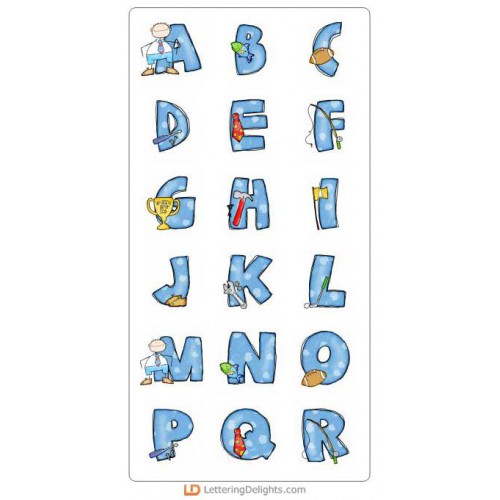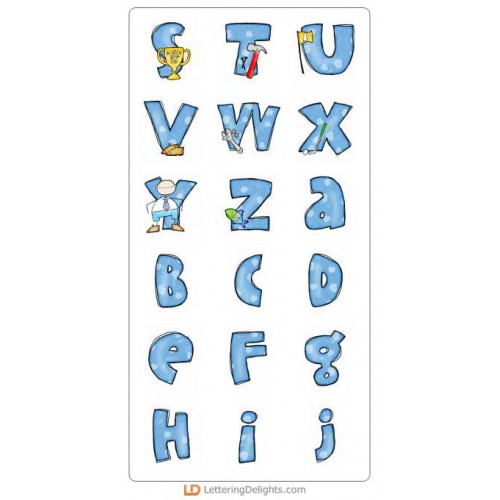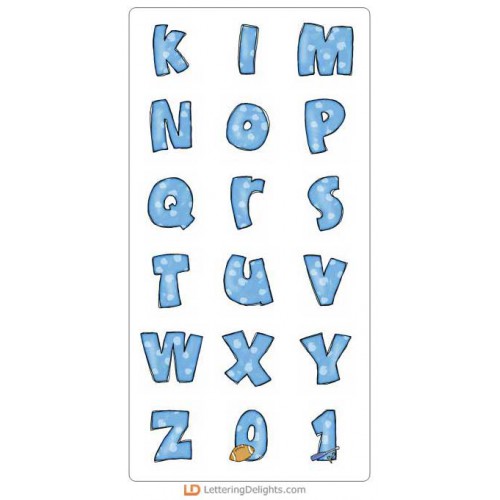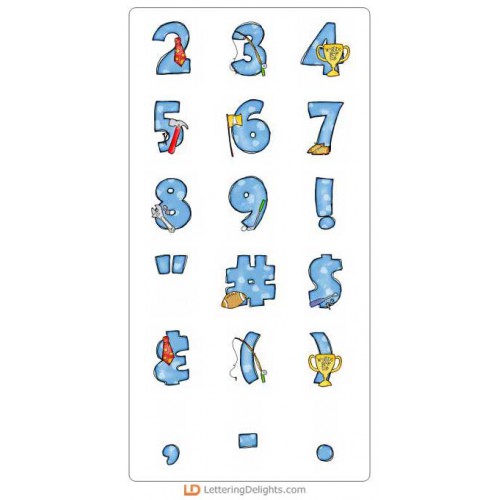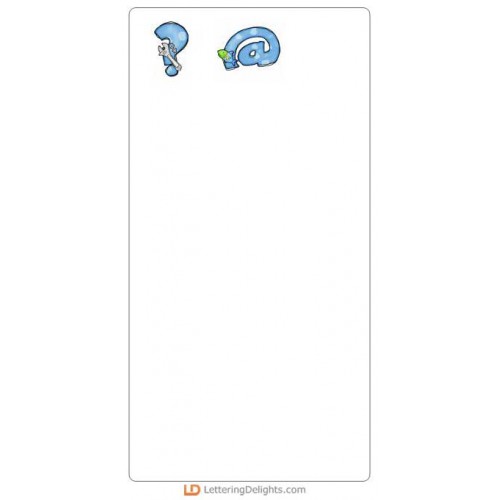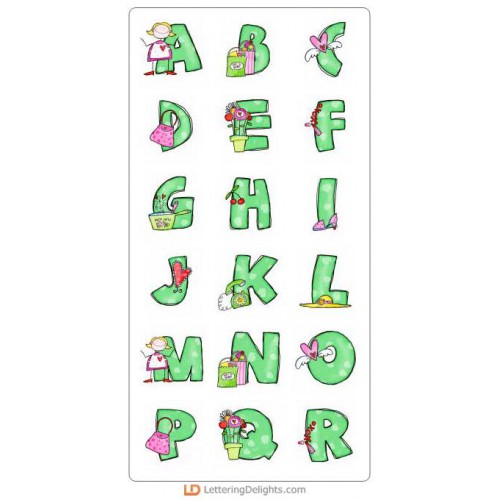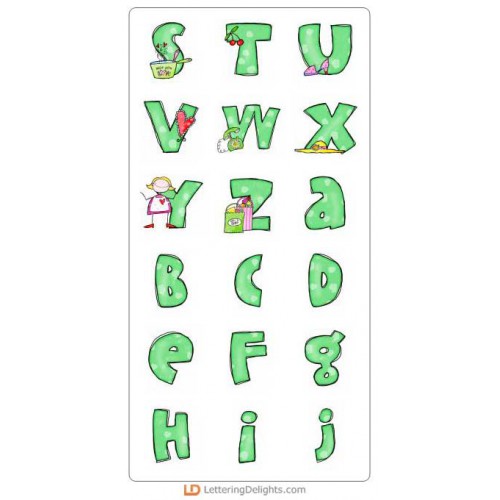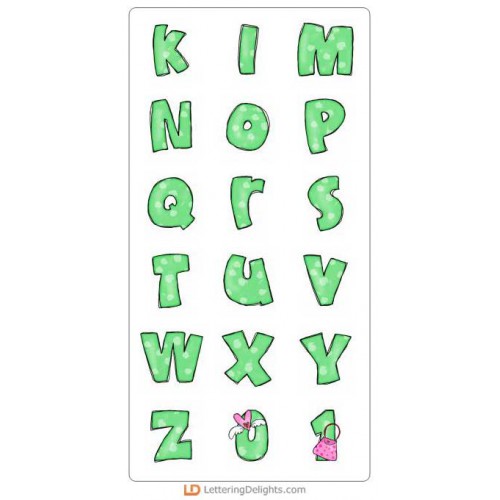
Jillustration's Scribble Family Bundle
The family comes together in the bundle full of ready-made alphabets and graphic sets. Kids and parents as well share the spotlight, allowing you to create scrapbook layouts, cards, and paper crafts for Mother's Day, Father's Day, and more.